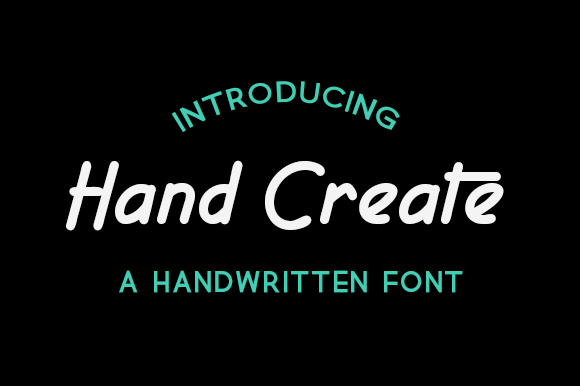
Introducing Hand Create: A Simple yet Charming Sans Serif Font
In the world of typography, a well-designed font can elevate your creative projects and make them stand out from the crowd. For designers and crafters looking for a unique and eye-catching font, Hand Create is an excellent choice. This simple sans serif font is perfect for headlines or other display purposes, and its rounded edges and slight italic design give it a soft charm that will add a touch of personality to your designs.
The Characteristics of Hand Create
Hand Create is a sans serif font, which means it doesn’t have the small lines or flourishes at the ends of the letters. This gives it a clean and modern look that’s perfect for designs that need to be clear and easy to read. The font has rounded edges, which add a touch of warmth and friendliness to the overall design. The slight italic design gives Hand Create a sense of movement and elegance, making it perfect for headlines and titles.
Perfect for Headlines and Display Purposes
Hand Create is specifically designed for headlines and display purposes, making it perfect for designers who want to create eye-catching titles and captions. The font is bold and attention-grabbing, making it ideal for use in advertising, branding, and marketing materials. Whether you’re designing a logo, brochure, or website, Hand Create is a great choice for adding a touch of personality and style to your text.
Adding a Soft Charm to Your Designs
One of the standout features of Hand Create is its soft charm. The rounded edges and slight italic design give the font a friendly and approachable feel that’s perfect for designs that need to be inviting and engaging. Whether you’re designing for a children’s brand, a lifestyle brand, or a creative agency, Hand Create is a great choice for adding a touch of warmth and personality to your designs.
Why Designers and Crafters Love Hand Create
Designers and crafters love Hand Create for a variety of reasons. Here are just a few:
- Easy to read: Hand Create is a clear and easy-to-read font, making it perfect for designs that need to communicate a message quickly and effectively.
- Versatile: Hand Create can be used in a variety of design contexts, from headlines and titles to body copy and captions.
- Unique: Hand Create has a unique and distinctive look that sets it apart from other sans serif fonts.
- Customizable: Hand Create can be easily customized to fit your design needs, from changing the color and size to adding effects and textures.
How to Use Hand Create in Your Designs
Using Hand Create in your designs is easy. Here are a few tips to get you started:
- Use it as a headline font: Hand Create is perfect for headlines and titles, so use it to add a touch of personality and style to your text.
- Experiment with different sizes: Hand Create looks great in a variety of sizes, from large and bold to small and subtle.
- Pair it with other fonts: Hand Create can be paired with other fonts to create a unique and interesting design.
- Add effects and textures: Hand Create can be customized with effects and textures to add depth and interest to your design.
Hand Create is a simple yet charming sans serif font that’s perfect for designers and crafters looking for a unique and eye-catching font. With its rounded edges and slight italic design, Hand Create adds a soft charm to any design. Whether you’re designing a headline, title, or caption, Hand Create is a great choice for adding a touch of personality and style to your text. So why not give it a try and see how Hand Create can elevate your designs?